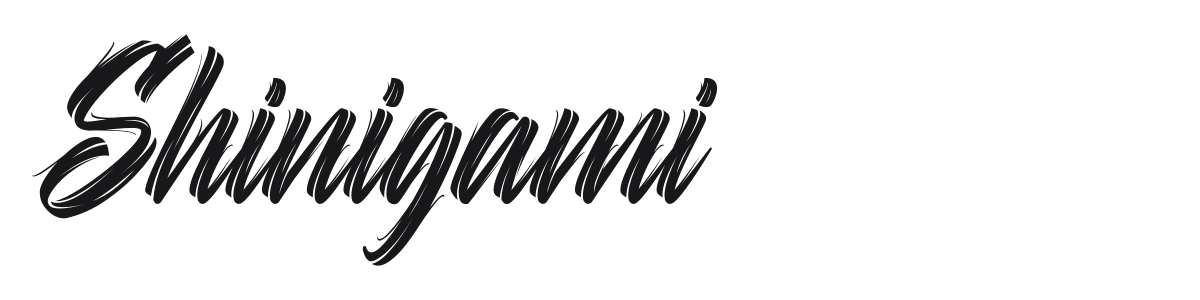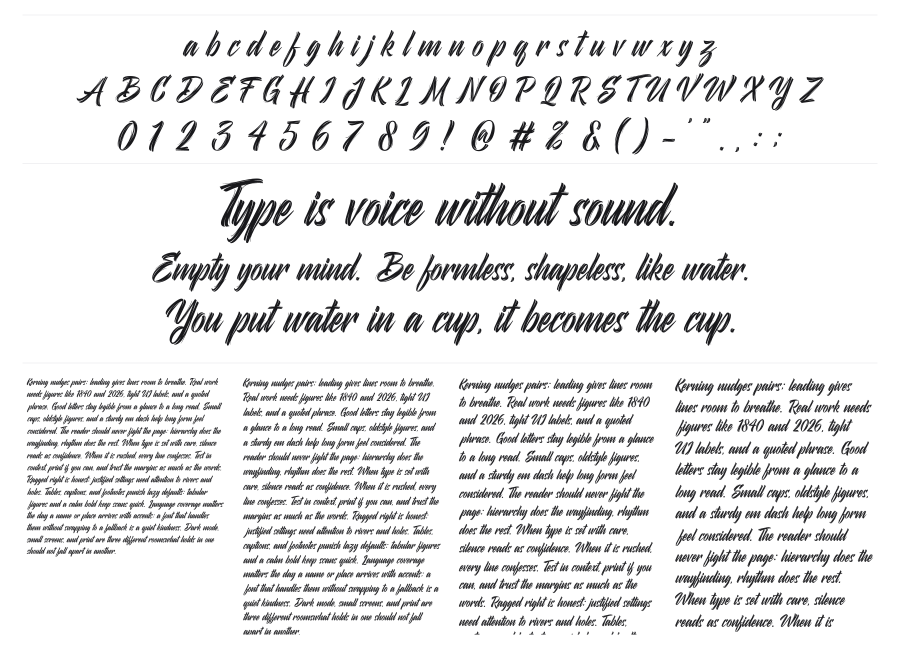
Shinigami
Shinigami is a bold brush script with heavy, textured strokes and dramatic hairline flourishes that feel like ink pulled fast across paper. The strong rightward lean and long trailing swashes give it a restless, kinetic energy. It sits naturally in streetwear branding, music packaging, and anything that needs a raw, hand-crafted edge.